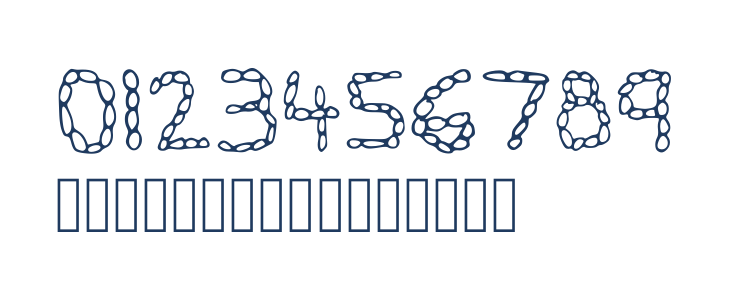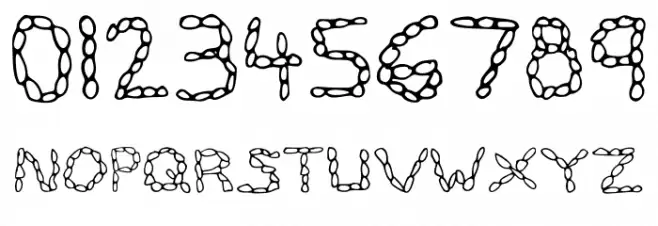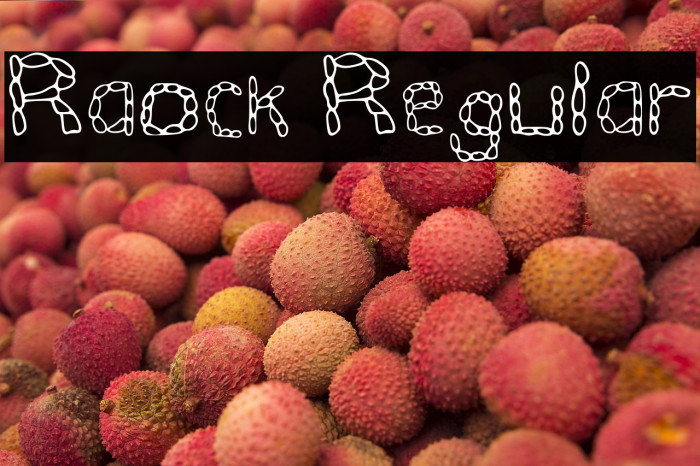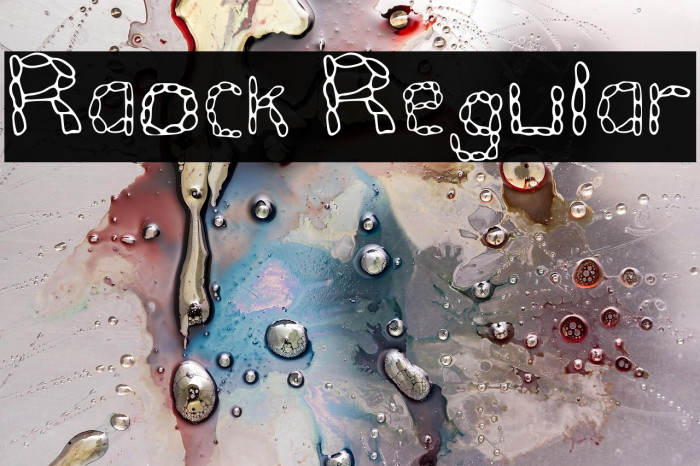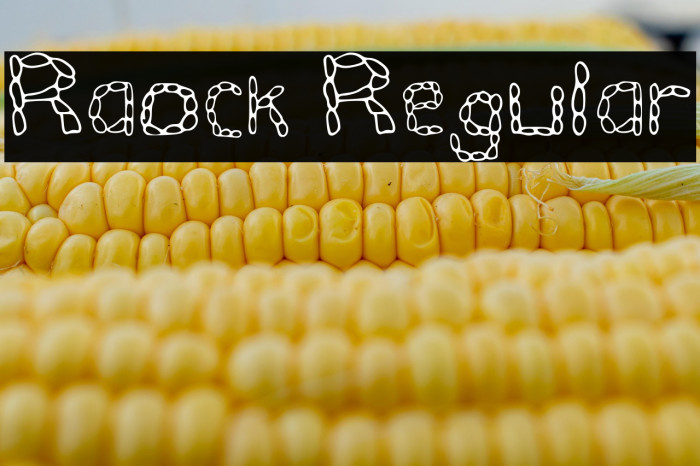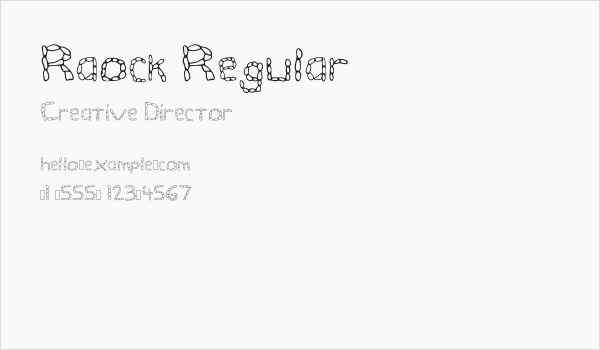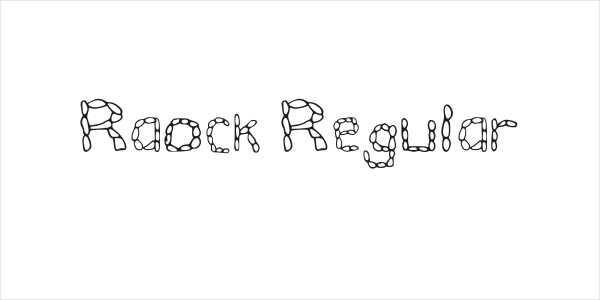
Raock Regular Font
Raock Regular Description
This font features a unique and playful design, characterized by its bubble-like, interconnected strokes that form each letter and number. The style is reminiscent of organic shapes, giving it a whimsical and artistic appearance. Each character is composed of multiple rounded segments, creating a sense of movement and fluidity. The font maintains a consistent line weight throughout, with medium contrast between the strokes and the spaces within the characters. Its distinct style makes it stand out, suitable for creative and informal applications.
A playful, bubble-like font with interconnected strokes and an artistic flair from Decorative fonts.
- Proposed Projects: Ideal for children's books, creative posters, party invitations, and playful branding projects.